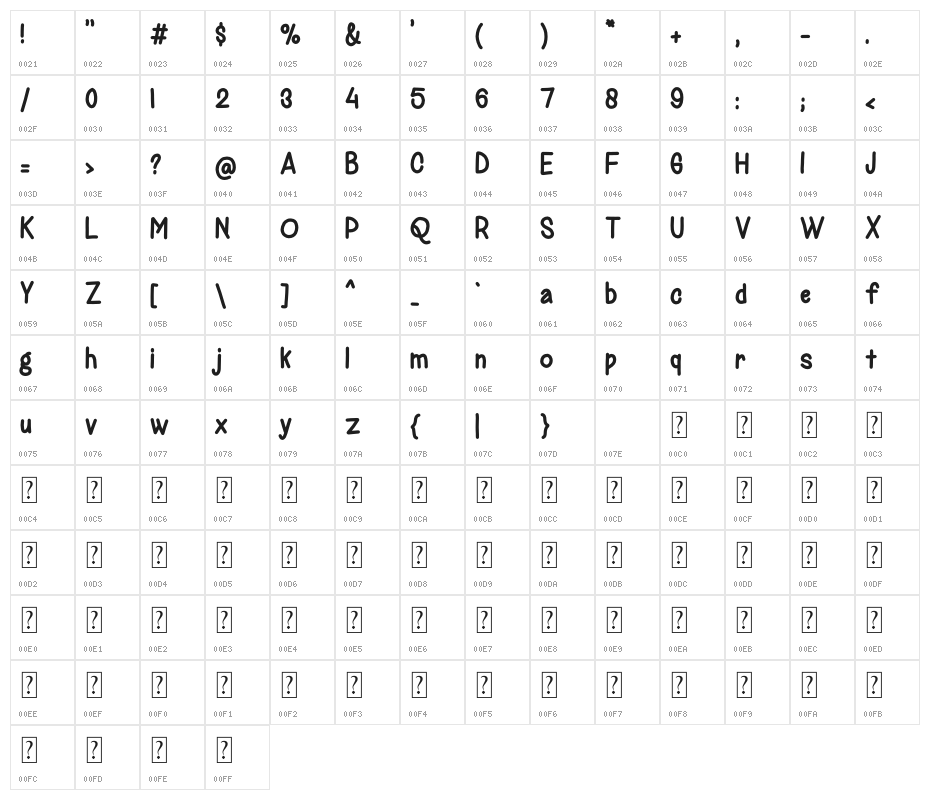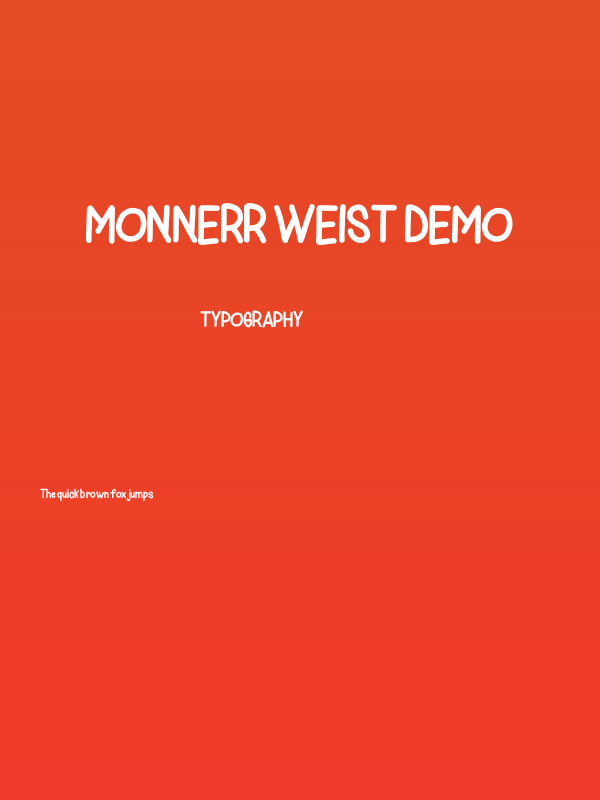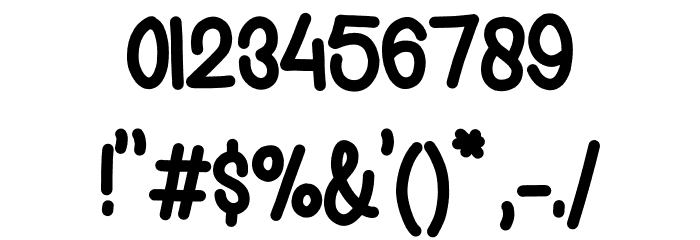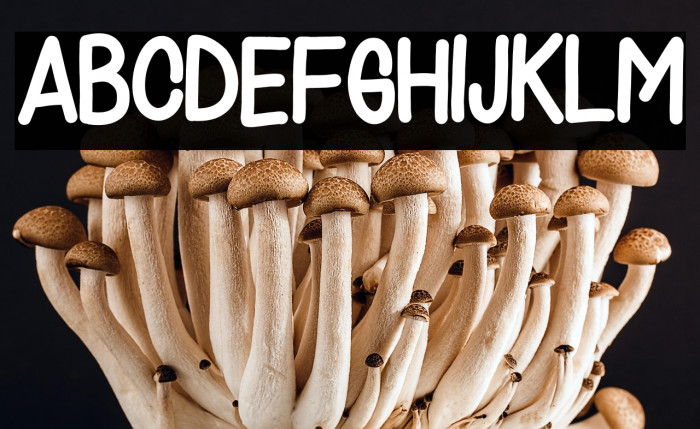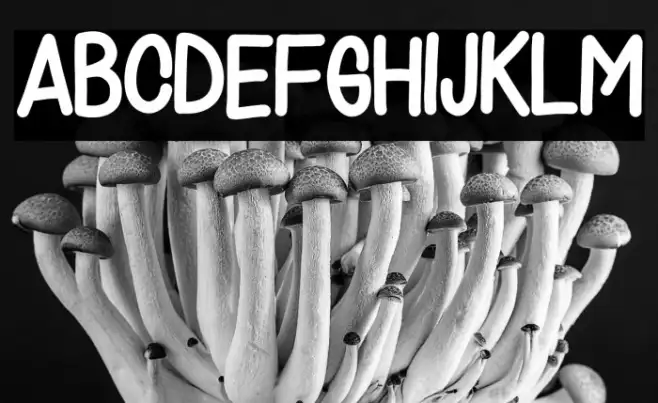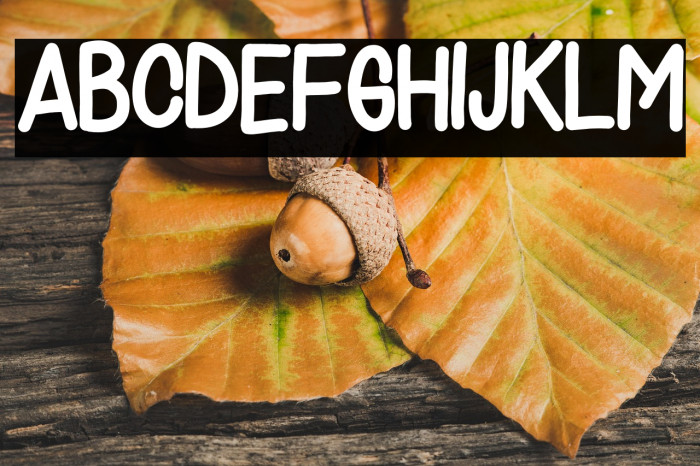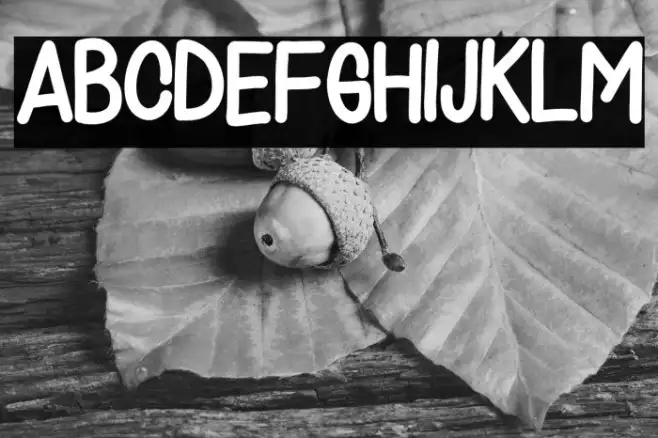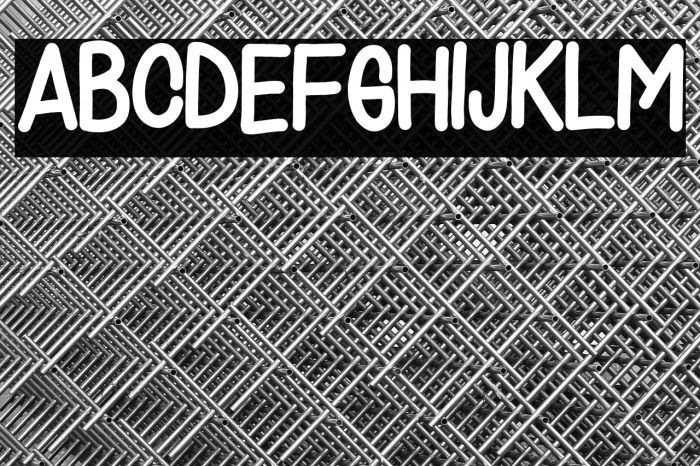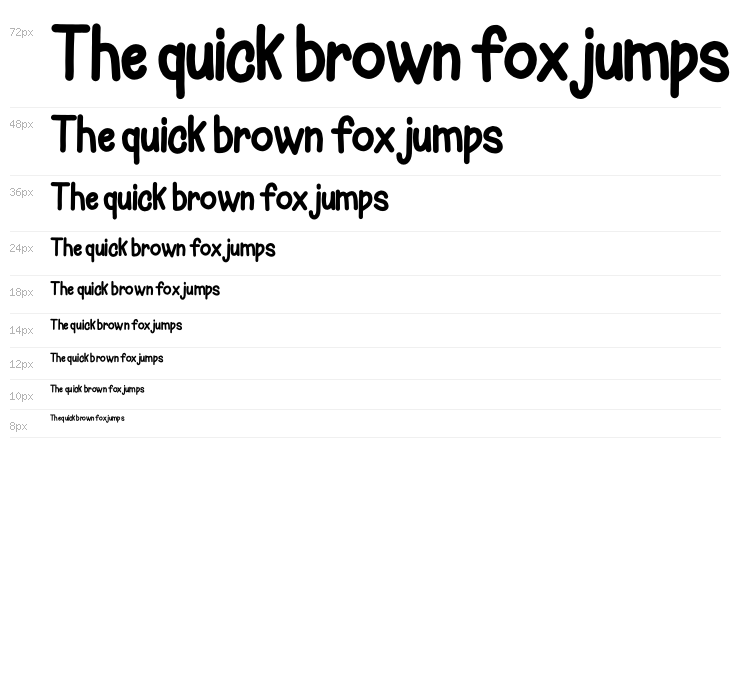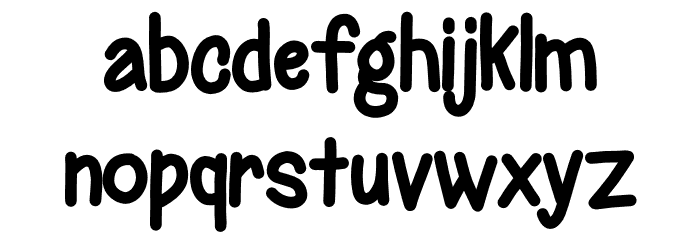
MONNERR WEIST DEMO Font
MONNERR WEIST DEMO Description
This playful and bold font features rounded, thick strokes that give it a friendly and approachable appearance. The characters are slightly irregular, adding a hand-drawn feel that enhances its charm. The uppercase and lowercase letters maintain a consistent style, with a noticeable emphasis on curves and rounded edges. Numbers and special characters follow the same design principles, ensuring a cohesive look across all elements. This font's unique style makes it stand out, perfect for projects that require a touch of whimsy and creativity.